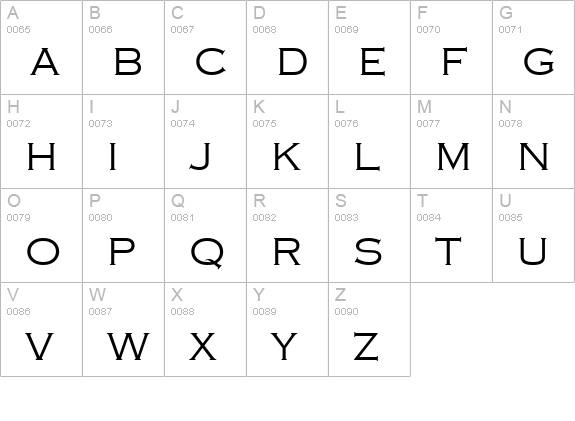
CopperplateTLig font exudes elegance and sophistication with its classic design and intricate details. This timeless font features sharp serifs and a delicate touch, making it perfect for formal invitations, luxury branding, and editorial designs. The CopperplateTLig font strikes the perfect balance between tradition and modernity, making it a versatile choice for a wide range of projects. The best part? CopperplateTLig is available for free download at FontsMarket.com. This means you can add a touch of sophistication to your designs without breaking the bank. Don't miss out on this exquisite font that will elevate your projects to the next level. Download CopperplateTLig today and let your creativity shine!